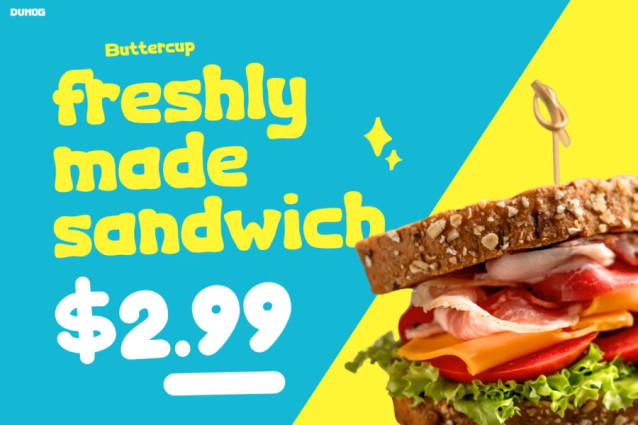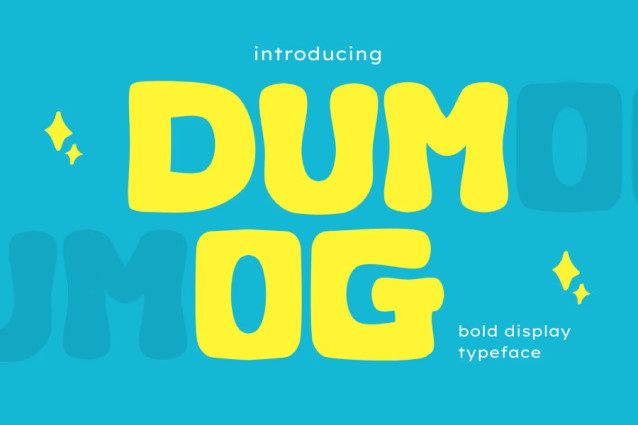
Dumog Font
Dumog Font is a bold and friendly typeface with soft, rounded shapes. Moreover, its joyful curves create a warm and happy impression. The letters feel expressive, yet they stay clean and easy to read. In addition, the font works well with bright colors and fun layouts. Each preview image shows how nicely it fits into food ads, festival posters, and kid-themed content. Therefore, it becomes a great option for anyone who wants an eye-catching design. The mix of playfulness and clarity also helps your message stand out. Besides that, the font’s simple forms give every design a light and cheerful mood.
Who Is It For?
Kids Font DUMOG is ideal for designers who need a friendly and direct style. In addition, small business owners can use it for menus, banners, packaging, and promo graphics. Brands that focus on kids or families will also enjoy its charm. The letters feel simple and fun, so children can read them with ease. Moreover, the font suits snacks, dessert products, toy packaging, and colorful posters. Teachers, event planners, and content creators can also benefit from its clarity. It works well for educational materials, festival announcements, and social media posts. Furthermore, the font brings a bright touch to bakeries, cafés, and food events. Whether you design ads, labels, or online content, this font adds a friendly spark. Then, your visuals feel more approachable and joyful.
Closing Encouragement
Kids Font DUMOG brings extra charm to every project. In addition, its clean shapes help you create a warm and positive style. If you want a design that feels lively and inviting, this font is a great choice. Moreover, it draws attention without looking heavy or complicated. Therefore, you can use it to build a cheerful brand identity. Finally, let this cute and modern font brighten your ideas and help your work stand out.